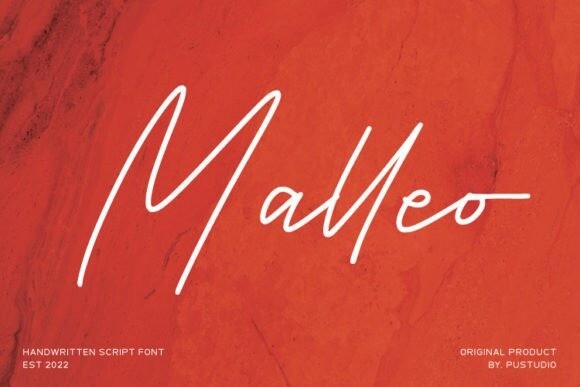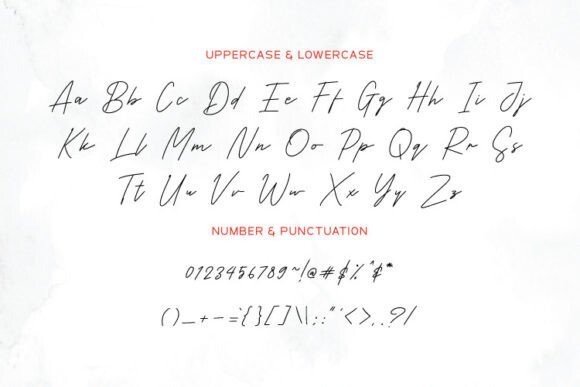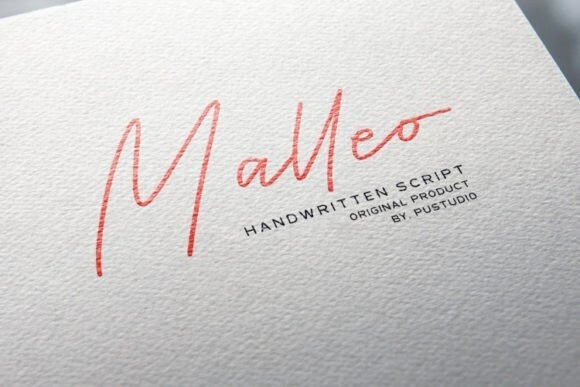
Malleo Font
Malleo Font is a beautiful script font that features charming and elegant handwritten characters. Add this font to your most creative ideas, and watch how it makes them stand out!